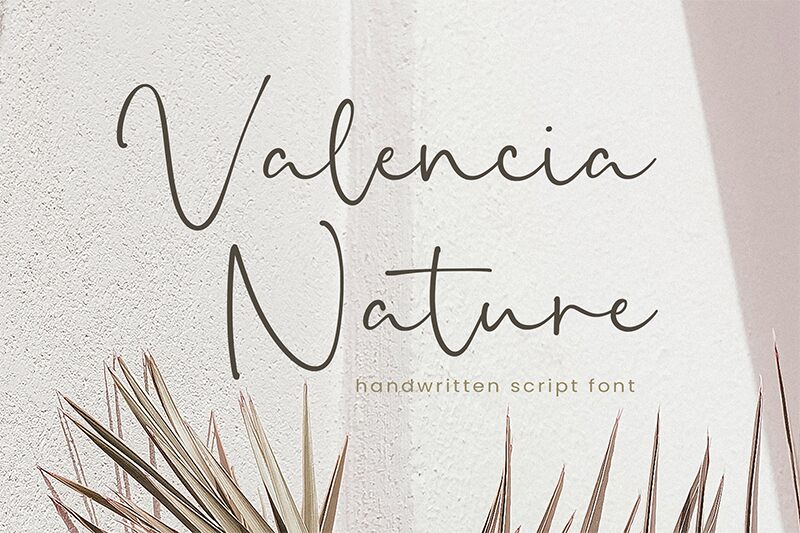
Valencia Nature
Valencia Nature font by Timur Type is a free light handwritten font. Its breezy monoline strokes and faint dry‑ink texture feel like notes jotted with a fine pen, while tall ascenders and a gentle baseline bounce give words an easy, airy rhythm. The letters breathe with open counters and subtle irregularities, keeping it elegant without getting fussy.
Using Valencia Nature, your type shines on wedding invitations, artisan packaging, café menus, quote graphics, florist branding, and photo watermarks. This free font loves medium‑to‑large sizes where its grain and loops stay crisp; give it roomy line spacing to let the forms sway. Pair with a quiet, clean sans for supporting text to balance the handwritten flair.